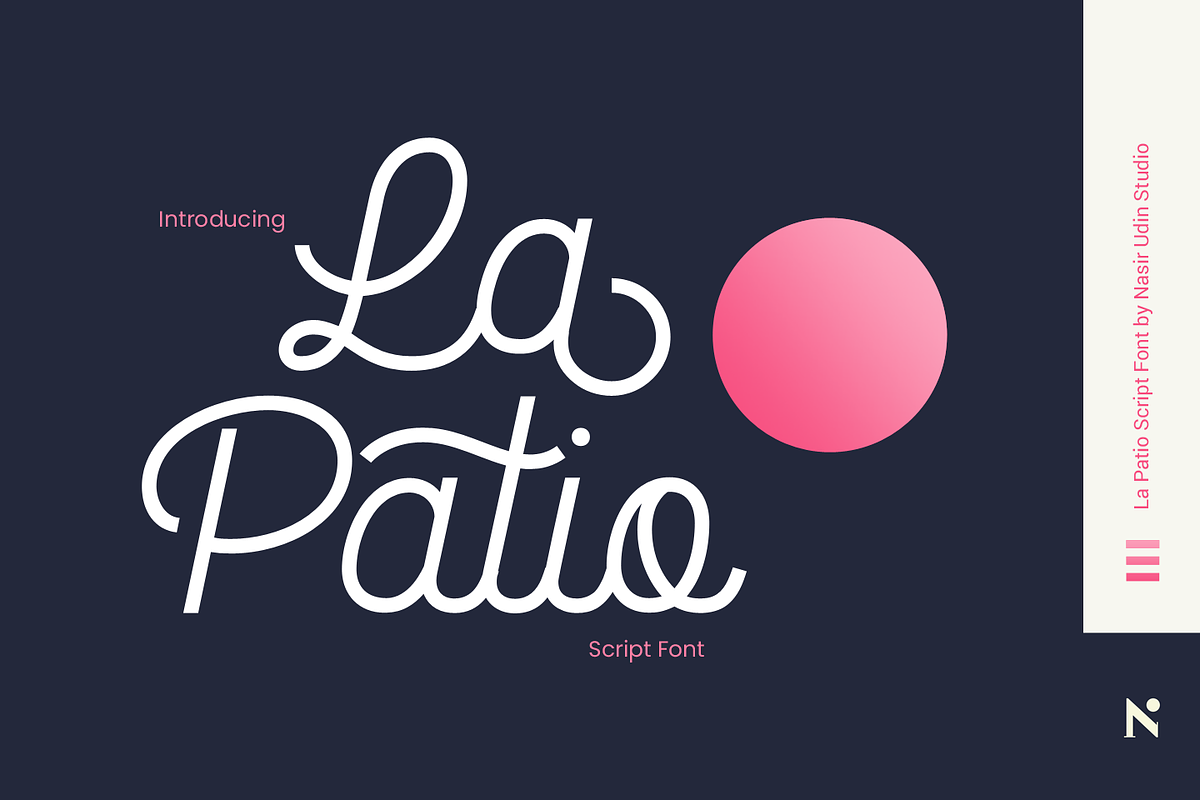
La Patio Script Font Free Download is a flowing, elegant script typeface that captures the beauty of modern calligraphy. With its smooth curves and natural, hand-lettered look, La Patio is perfect for wedding invitations, greeting cards, branding, social media graphics, and personal stationery.
Its sophisticated, stylish letterforms give your designs a polished and romantic touch, making it ideal for projects that need to feel personal and refined. Whether you’re creating invitations or custom branding, La Patio will add a touch of grace and beauty to your typography.